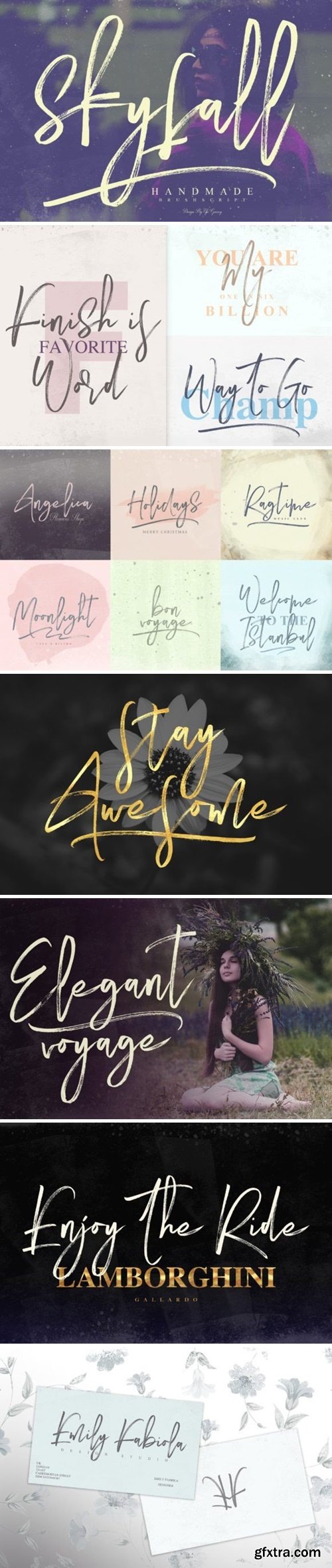
Skyfall is a carefully crafted hand drawn brush script. It features a bouncing baseline with alternates for all characters, plus extra swashes for creating perfect headlines, quotes & advertising materials.